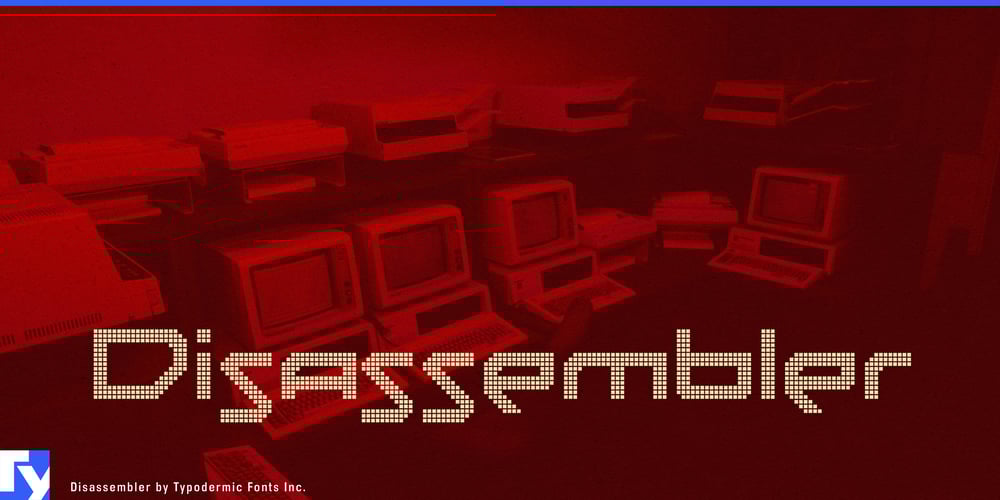
Disassembler Font Family was designed by Ray Larabie and published by Typodermic. Disassembler contains 8 styles and family package options. Disassembler: The typeface that reboots typography for the 8-bit age. This Typodermic Fonts creation isn’t just a font—it’s a time machine, catapulting your designs back to the dawn of digital with pixel-perfect precision.Crafted with the loving attention of a retro game developer, Disassembler recreates the distinctive charm of early computer displays. Each character is a masterpiece of low-resolution artistry, where every pixel counts and clarity emerges from constraint. It’s not just type; it’s digital archaeology, preserving the aesthetic of an era when computers were new and every program felt like magic. But Disassembler isn’t content with mere nostalgia. It comes armed with a toolkit of glitch effects and distortions, allowing you to corrupt your text with the authentic charm of malfunctioning hardware. From subtle static to full-on digital meltdown, Disassembler lets you fine-tune the level of retro chaos in your designs.Picture your slogans flickering across a virtual CRT, your brand name rendered in vibrant low-res color, or your album title glitching out like a crashed game cartridge. Disassembler doesn’t just display text—it teleports it through time, infusing your message with the raw energy of the digital frontier. True to its 8-bit roots, Disassembler’s kerning snaps to full pixel increments, ensuring every character alignment is as authentic as the chunky pixels themselves. It’s this fanatical attention to detail that transforms Disassembler from a mere font into a portal to the past.Speaking the universal language of early computing, Disassembler supports a vast array of Latin-based European writing systems. From Helsinki to Lisbon, your pixelated message will resonate with retro charm across linguistic borders. Disassembler isn’t for designers seeking sleek minimalism. It’s for digital archaeologists, for brands tapping into technostalgia, for messages that need to cut through modern noise by echoing the past. In a world of ultra-high resolution, Disassembler proudly embraces the beauty of the pixel.Ready to reboot your typography? Load up Disassembler and watch your designs transform into artifacts from an alternate digital history. Because in a world of endless vector scalability, sometimes the most powerful statement is made one pixel at a time.